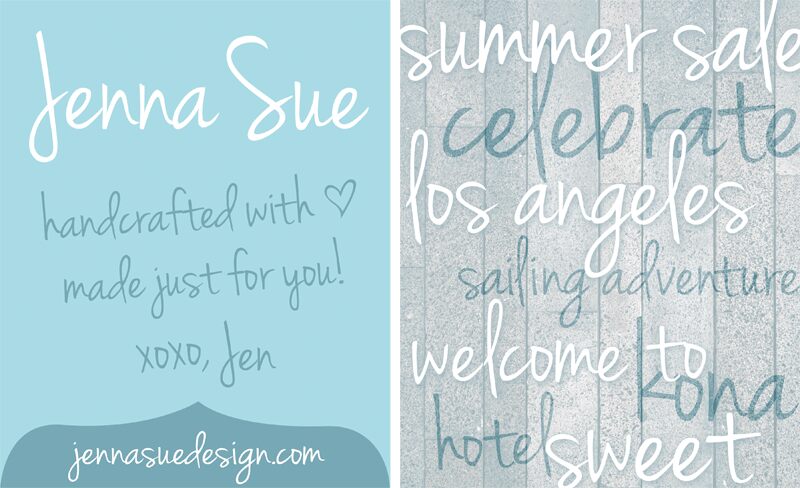
Jenna Sue is a free handwritten font with tall, loosely drawn letters and an easy signature-like flow. Its thin strokes shift gently in width, and the exaggerated capitals, high-reaching forms, and irregular joins give the writing a quick, personal quality.
Designers addressing a youthful, informal audience can use it for boutique branding, wedding invitations, beauty packaging, and lifestyle editorials, where the airy penmanship resembles a note written directly to the reader. Its clearest market is personal and occasion-based design, especially stationery and small fashion labels seeking the recognizable sweep of a name signed by hand.
This handwritten font includes numbers and punctuation.